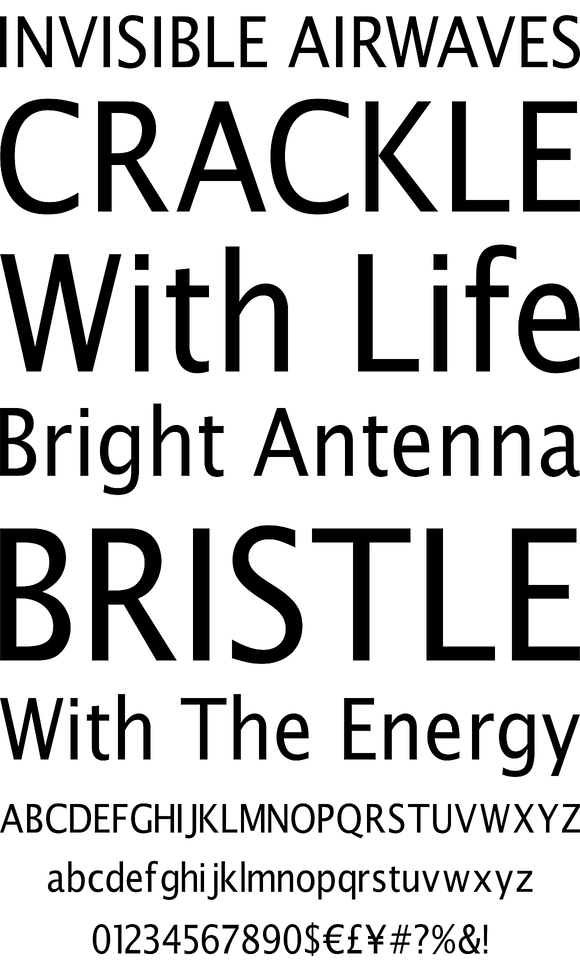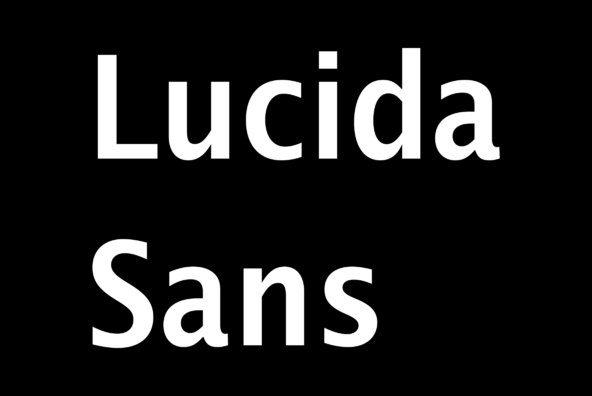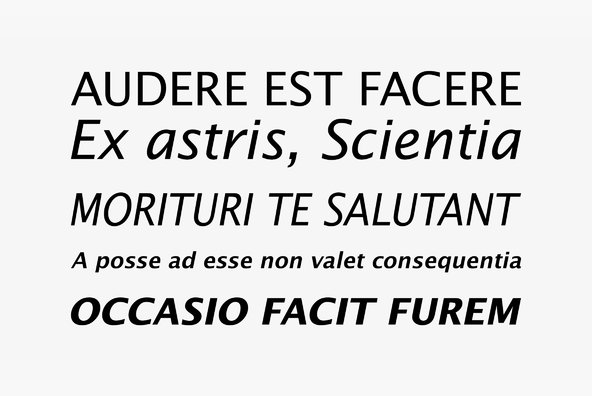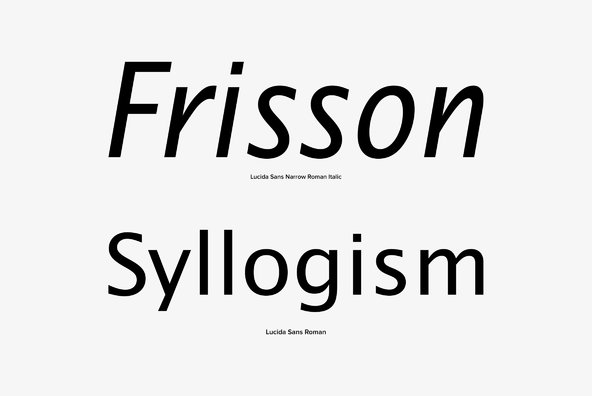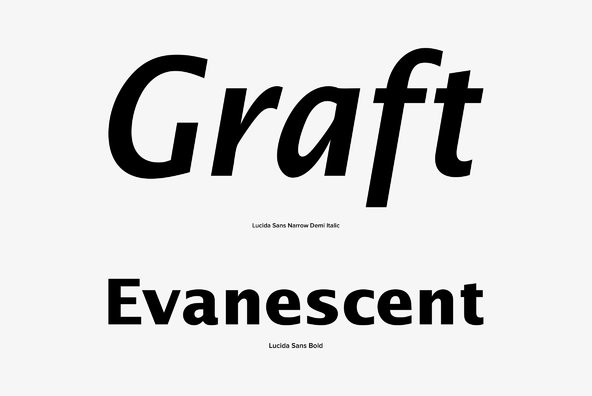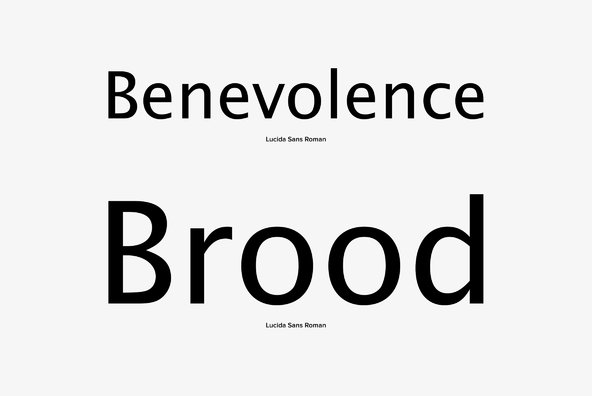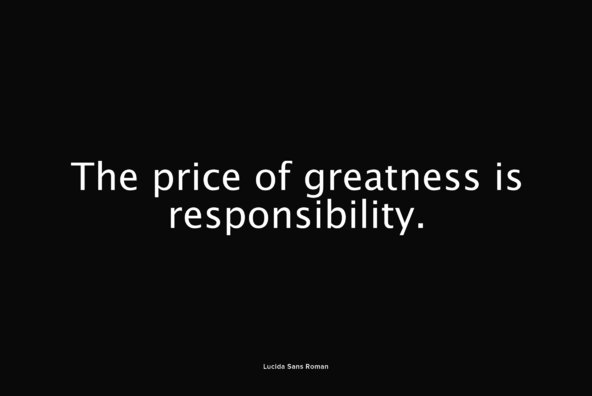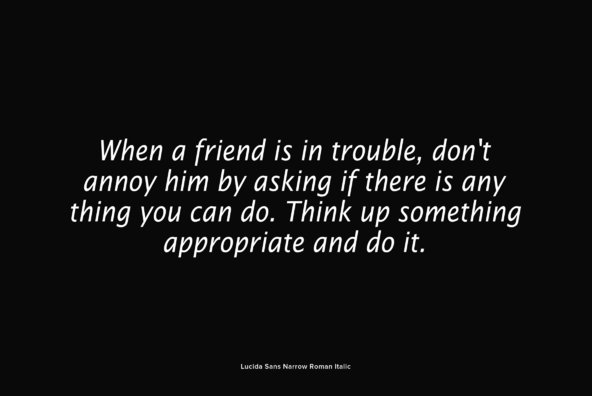
Designed by Charles Bigelow & Kris Holmes in 1986, Lucida Sans is a clean sans-serif release by URW. Contains language support for West, East, Turkish, Baltic, and Romanian.